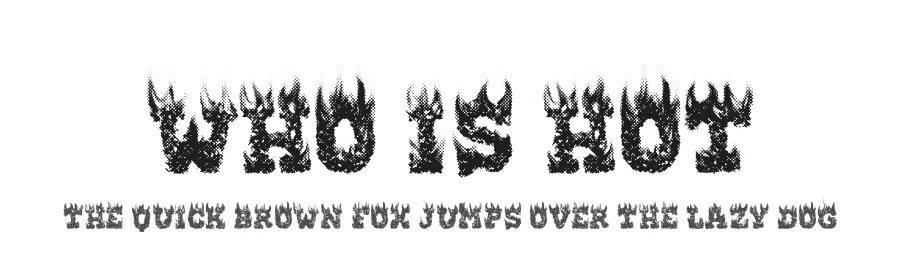
About Blaze of Glory Font
| Designer | Allison J. James |
Blaze of Glory Font is a decorative font that shines as a display or heading face. Pair it with a clean sans-serif or serif font for body text β the contrast creates a clear hierarchy while the two styles stay balanced and easy to read.